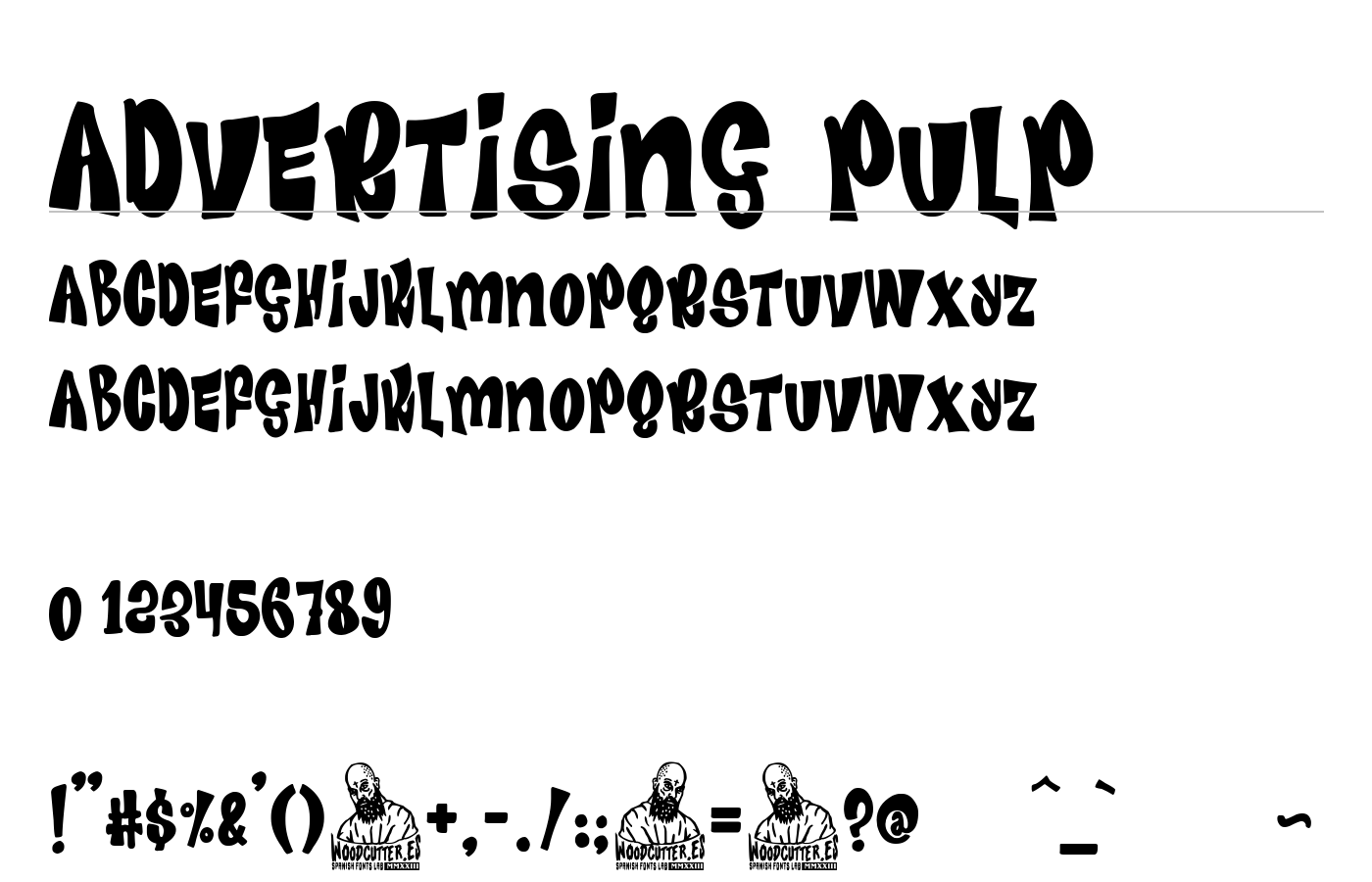
Advertising Pulp is a bold, playful sans serif font with an irregular, hand-drawn feel that gives it a lively and quirky personality. Its thick, uneven strokes and whimsical letter shapes make it perfect for attention-grabbing headlines, vintage-inspired posters, and creative branding that seeks to convey fun and energy. This font shines in contexts where a unique, informal style is needed to stand out and engage viewers.
Advertising Pulp Font